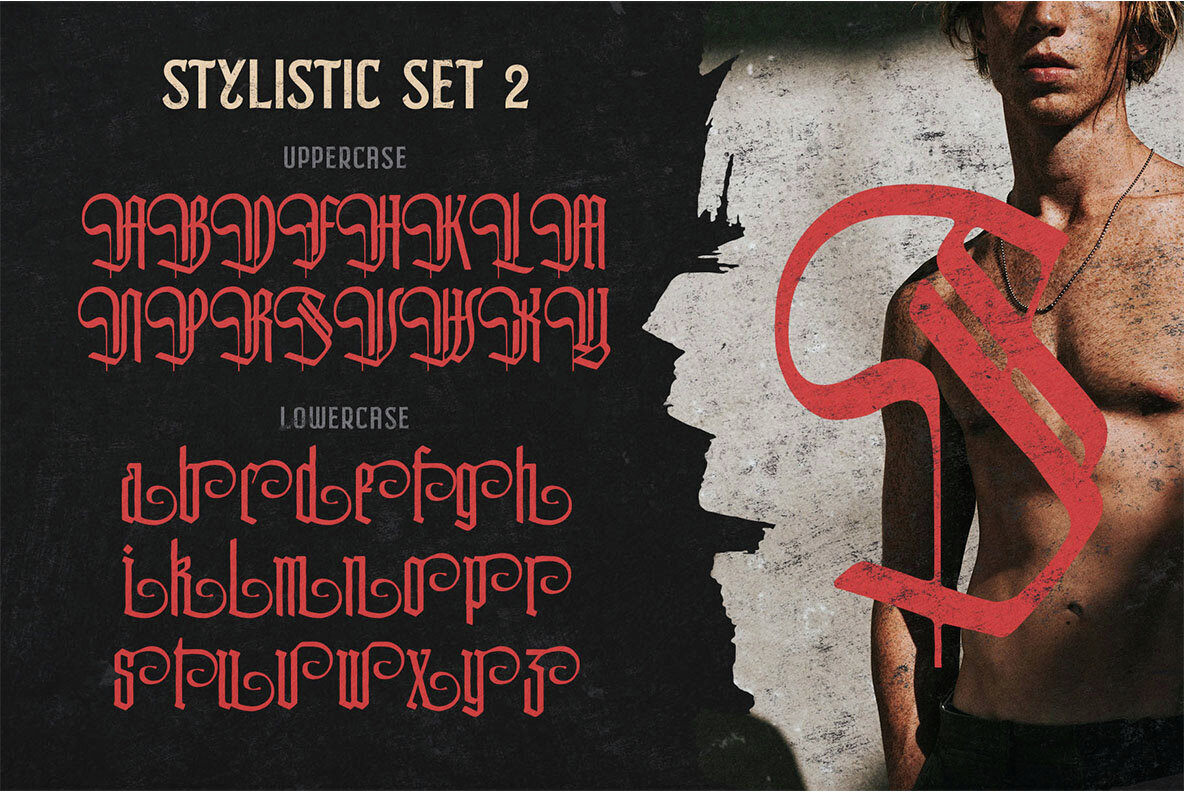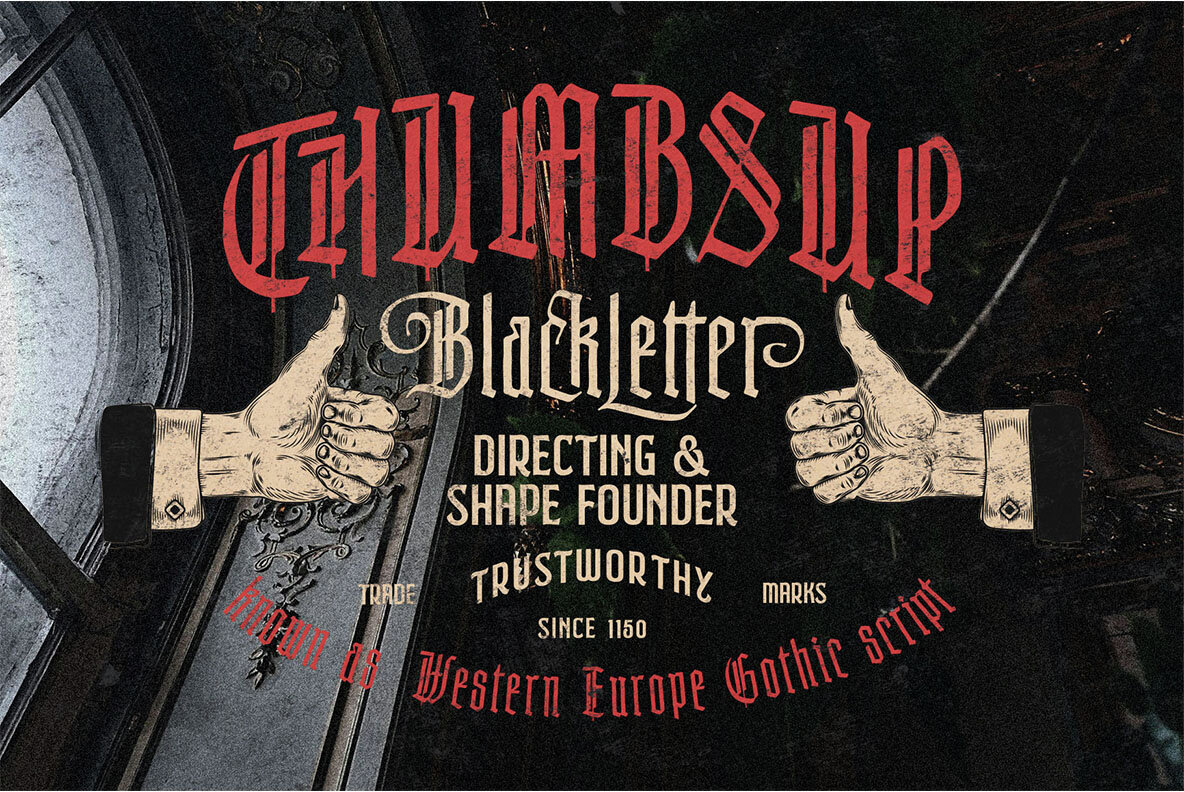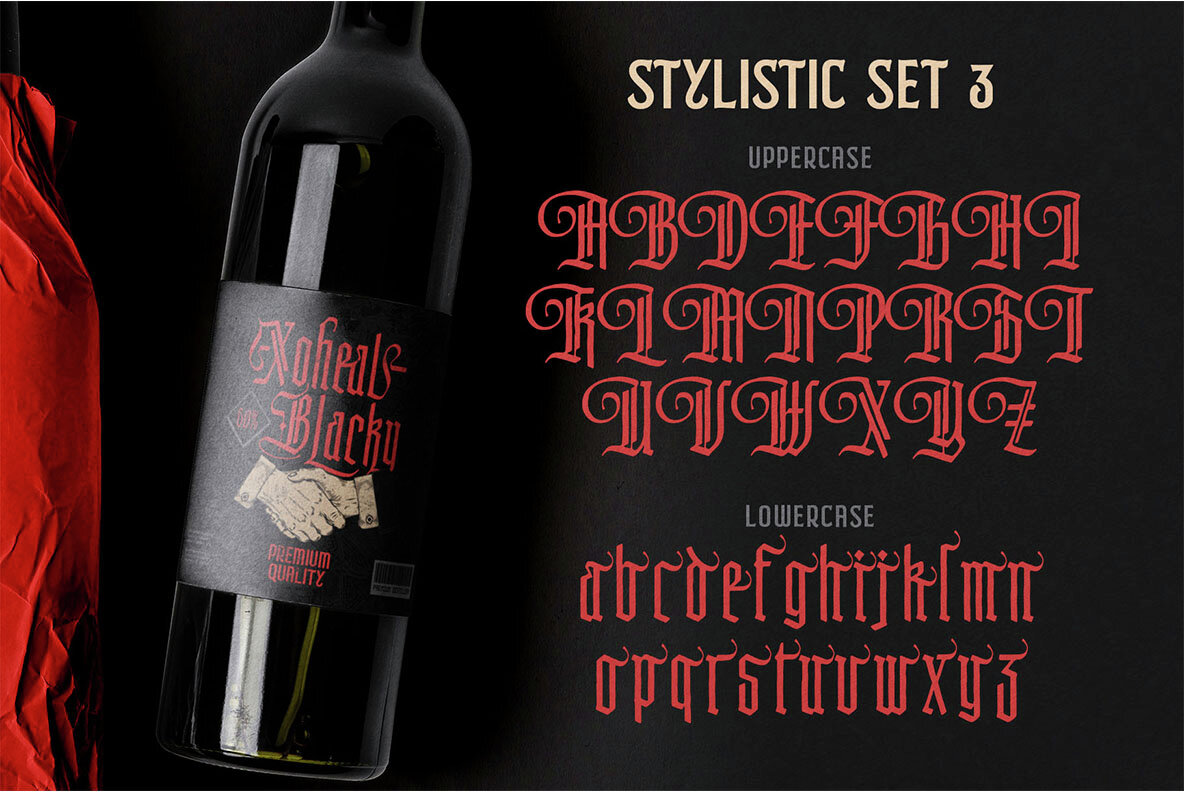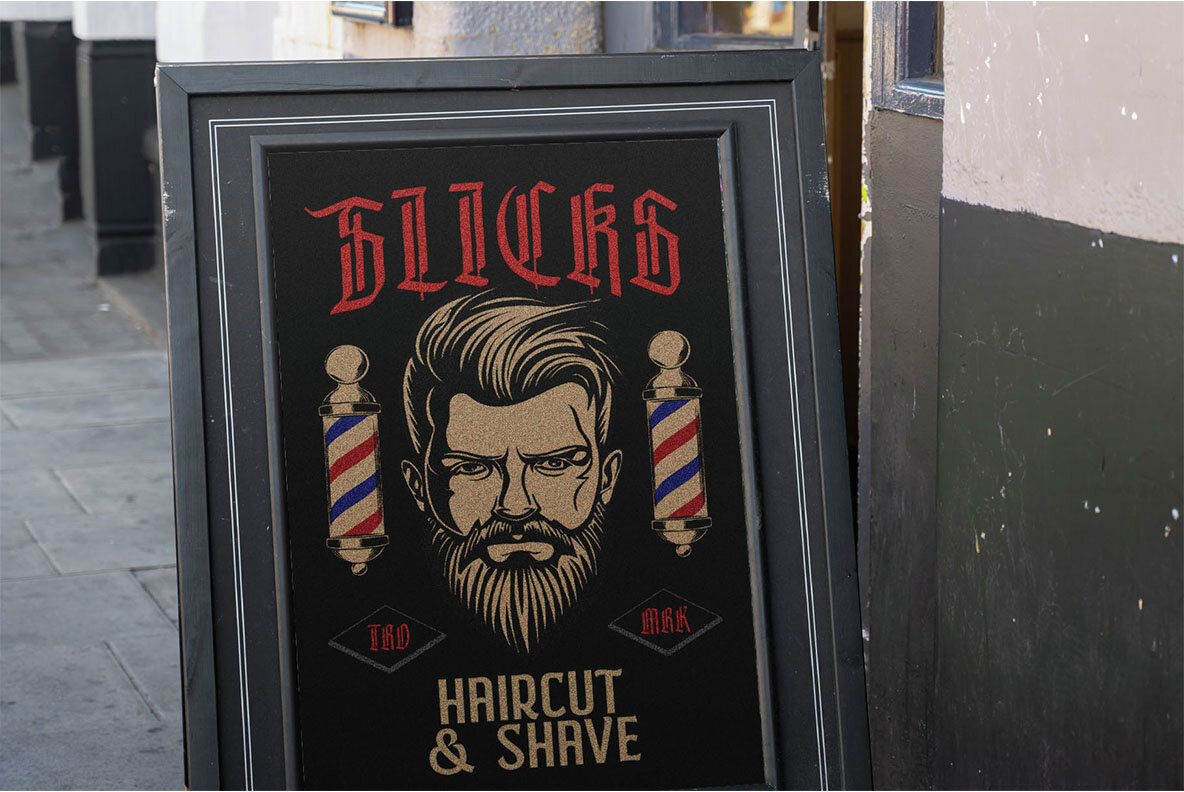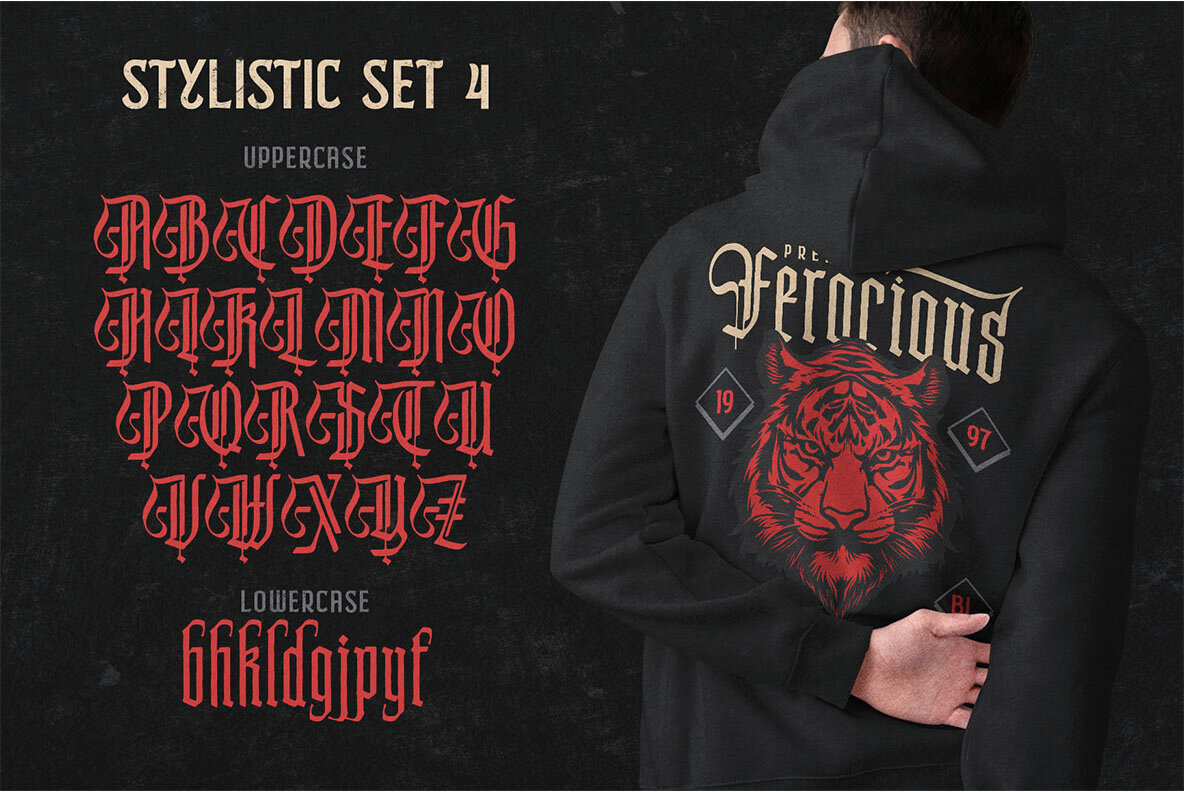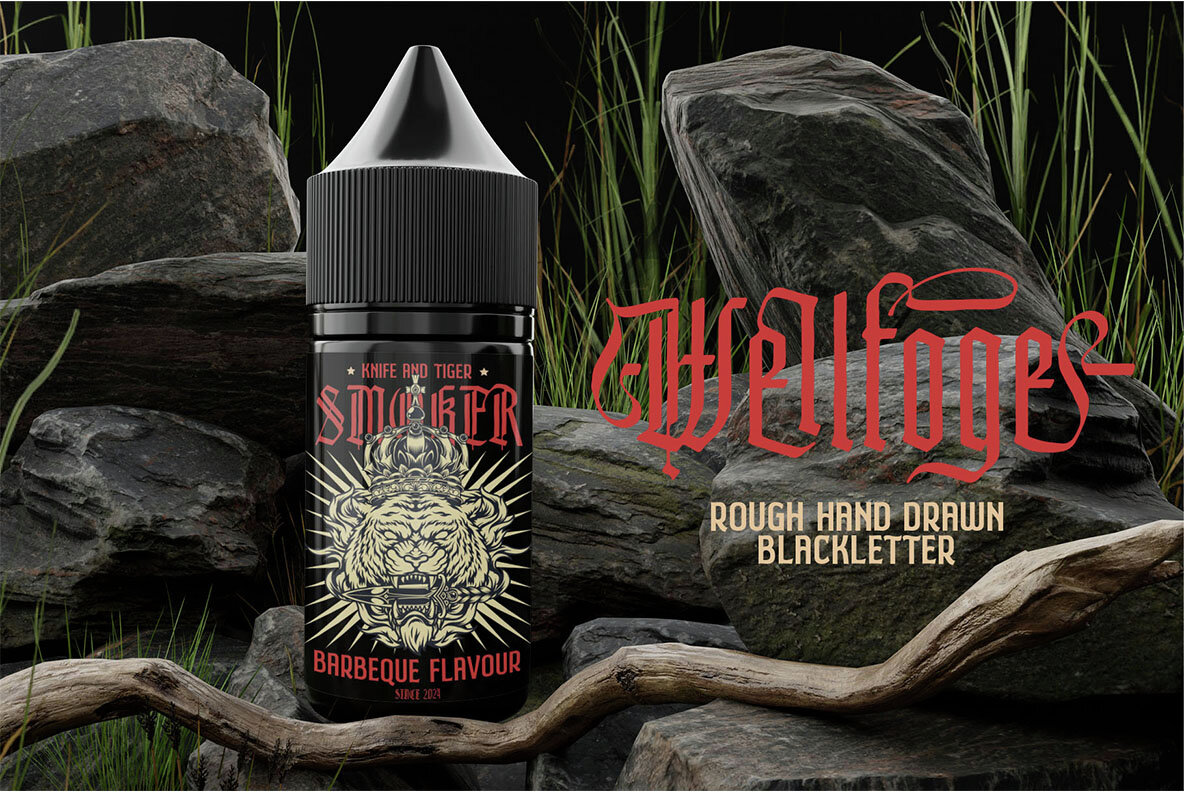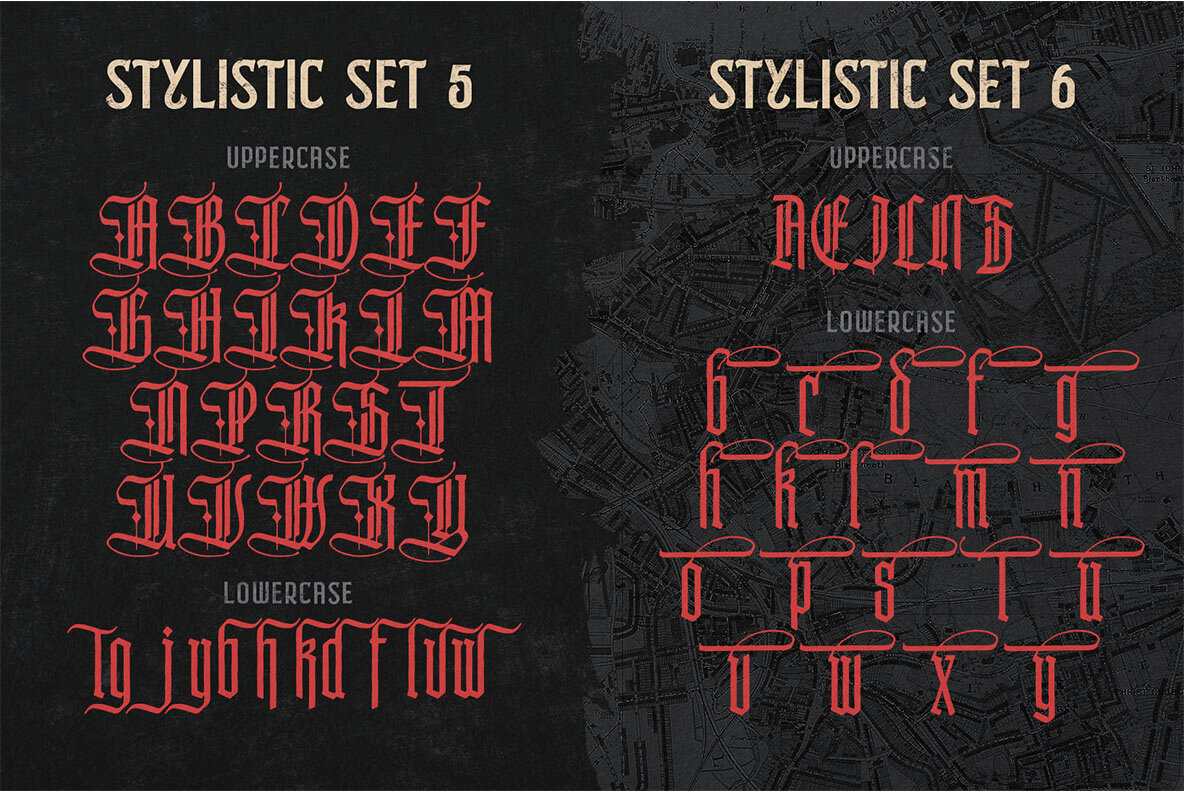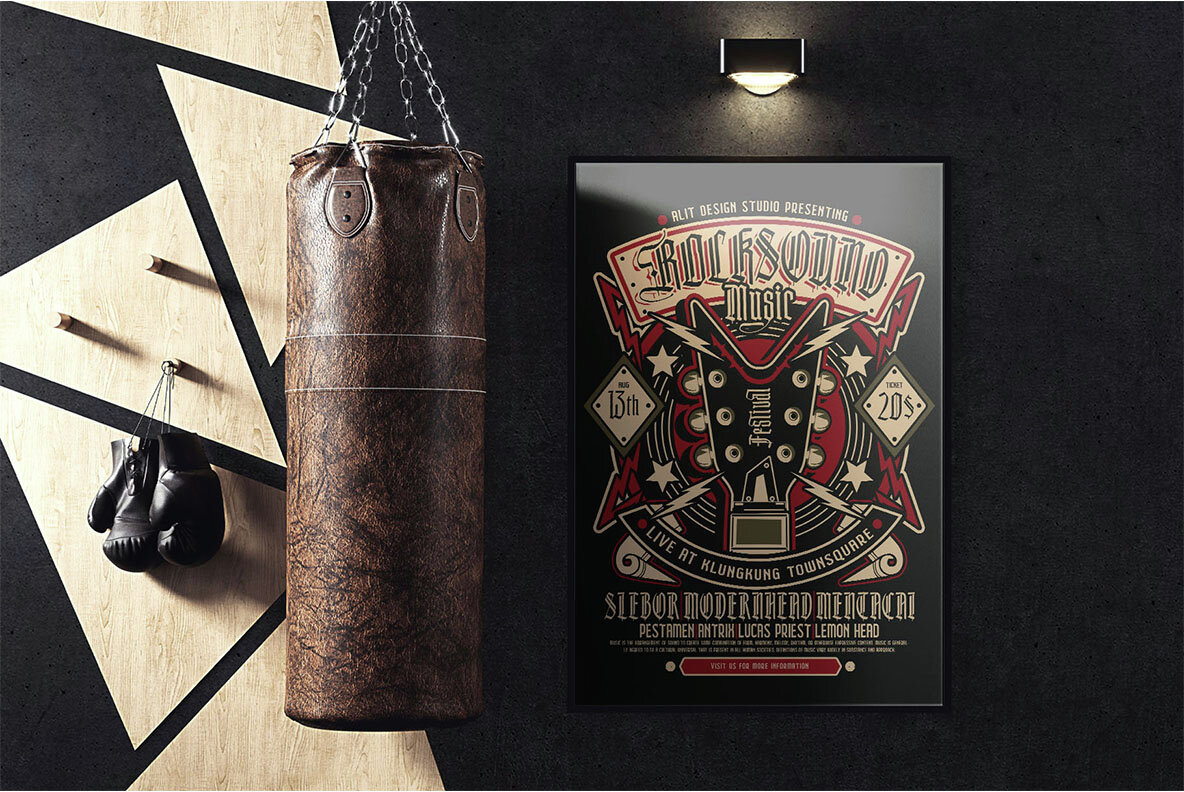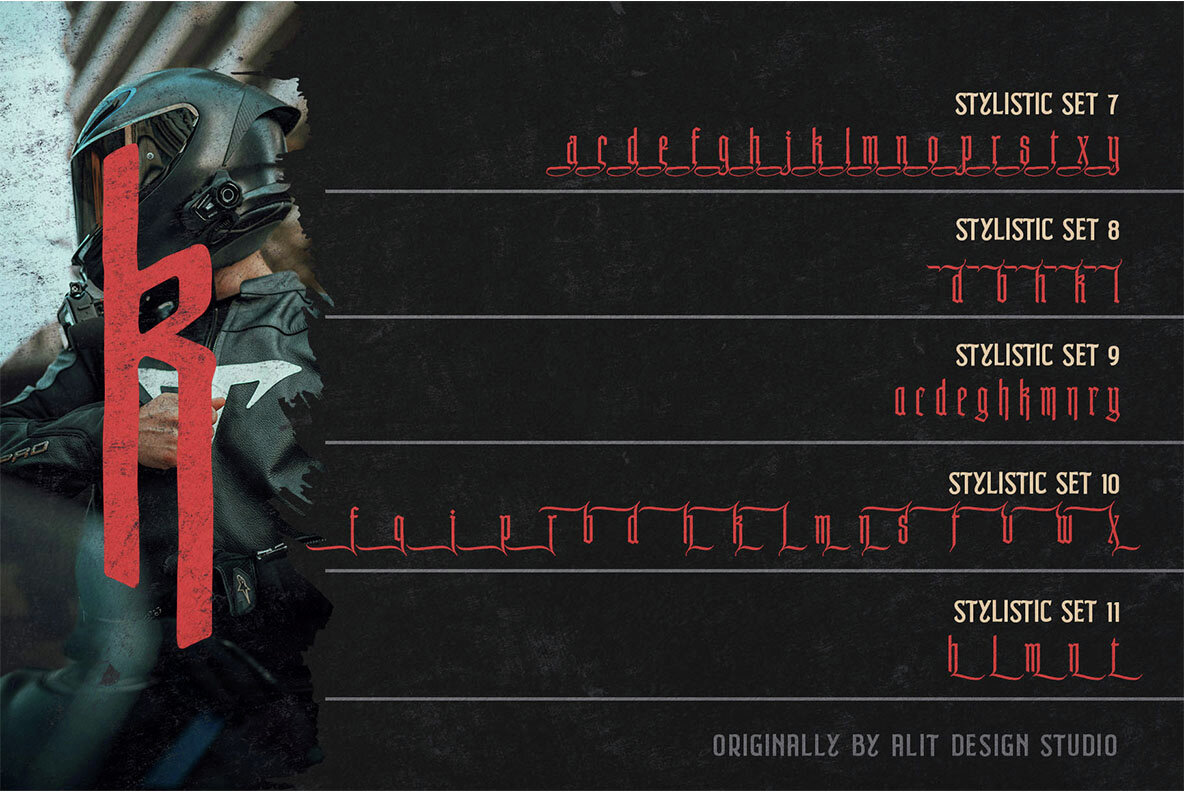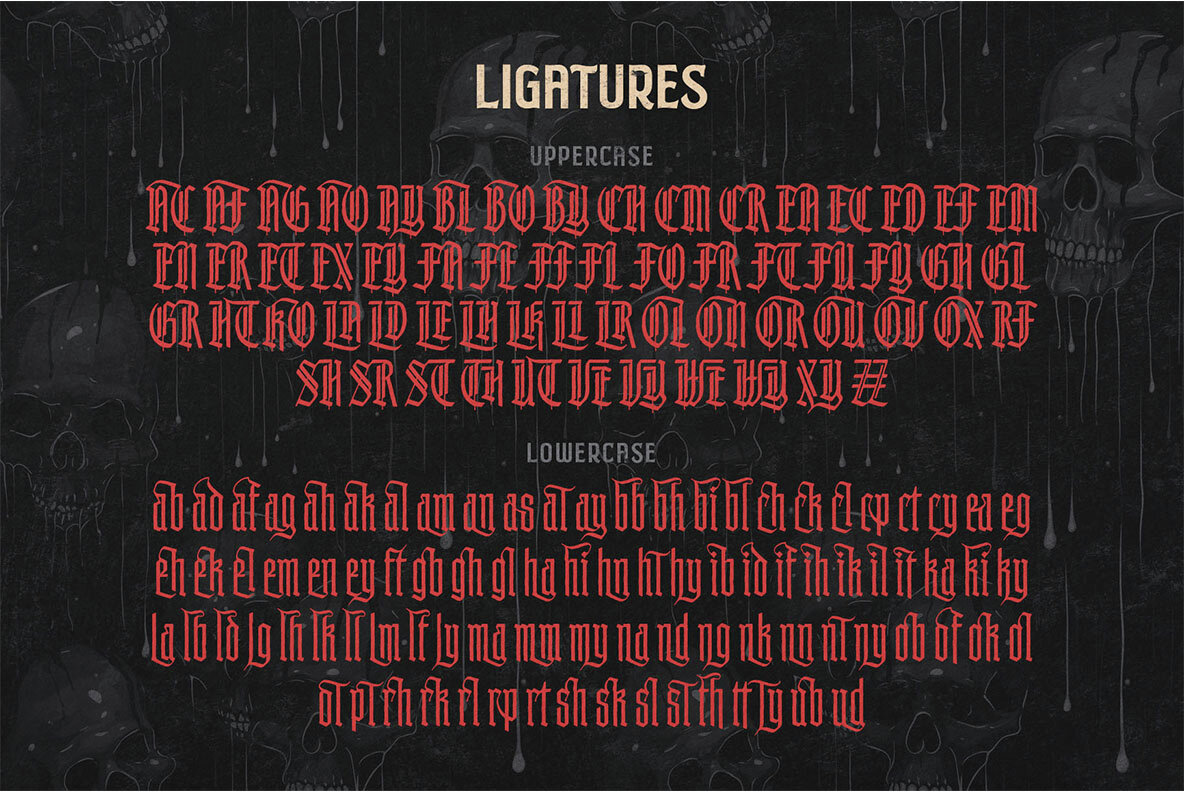
Wellfoge Font
Wellfoge Regular
Experience the timeless elegance and bold expressions of the Wellfoge Blackletter Rough Font. This meticulously crafted typeface marries the rugged charm of blackletter with a vintage flair, making it an ideal choice for projects that require an old-world touch. Drawing inspiration from historical manuscripts, Wellfoge captures the essence of classic calligraphy with a modern twist. Its rough, textured edges add an authentic, aged feel, perfect for posters, logos, book covers, and more.
With an impressive 923 characters, including a full set of ligatures and swashes, this font offers endless creative possibilities. Whether you are working on a traditional design or seeking to infuse a contemporary project with a touch of history, Wellfoge delivers style and sophistication. Let the art of the past inspire your future creations with the Wellfoge Blackletter Rough Font.